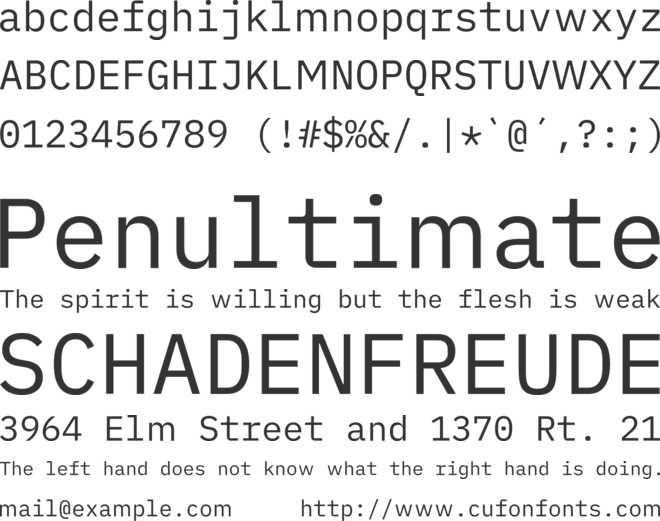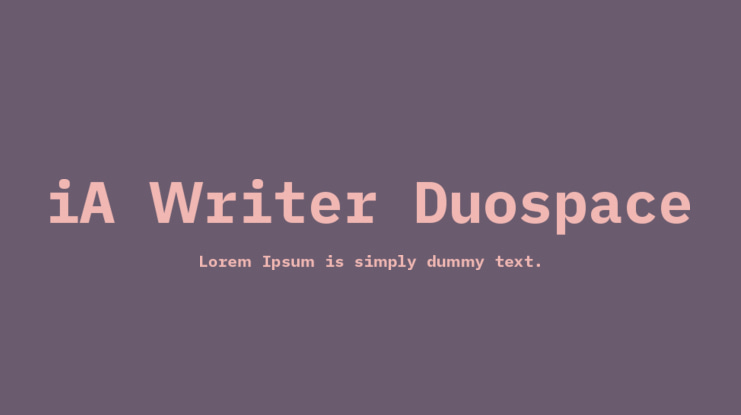
iA Writer Duospace Font Family
Mike Abbink, Bold Monday, modified by Oliver Reichenstein
This is a modification of IBM's Plex font. The upstream project is here